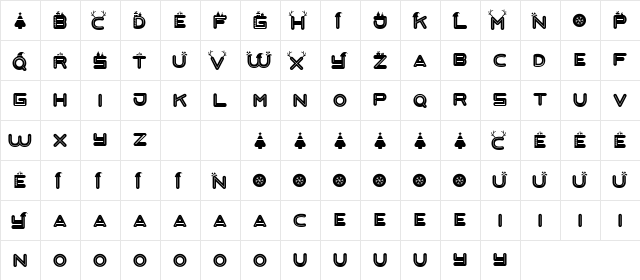
Love Santa Regular
Design Context for Love Santa Typeface
Love Santa is a composed and adaptable typeface that performs quietly and consistently across a wide range of design contexts.